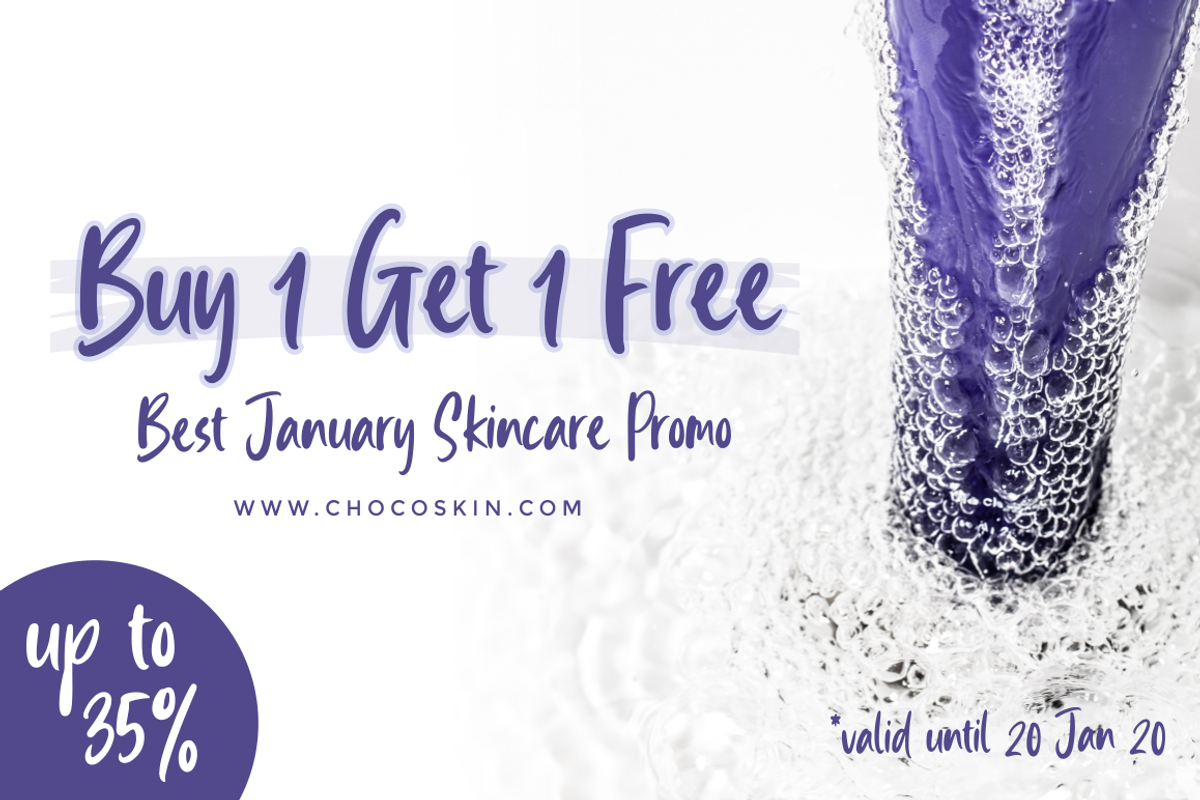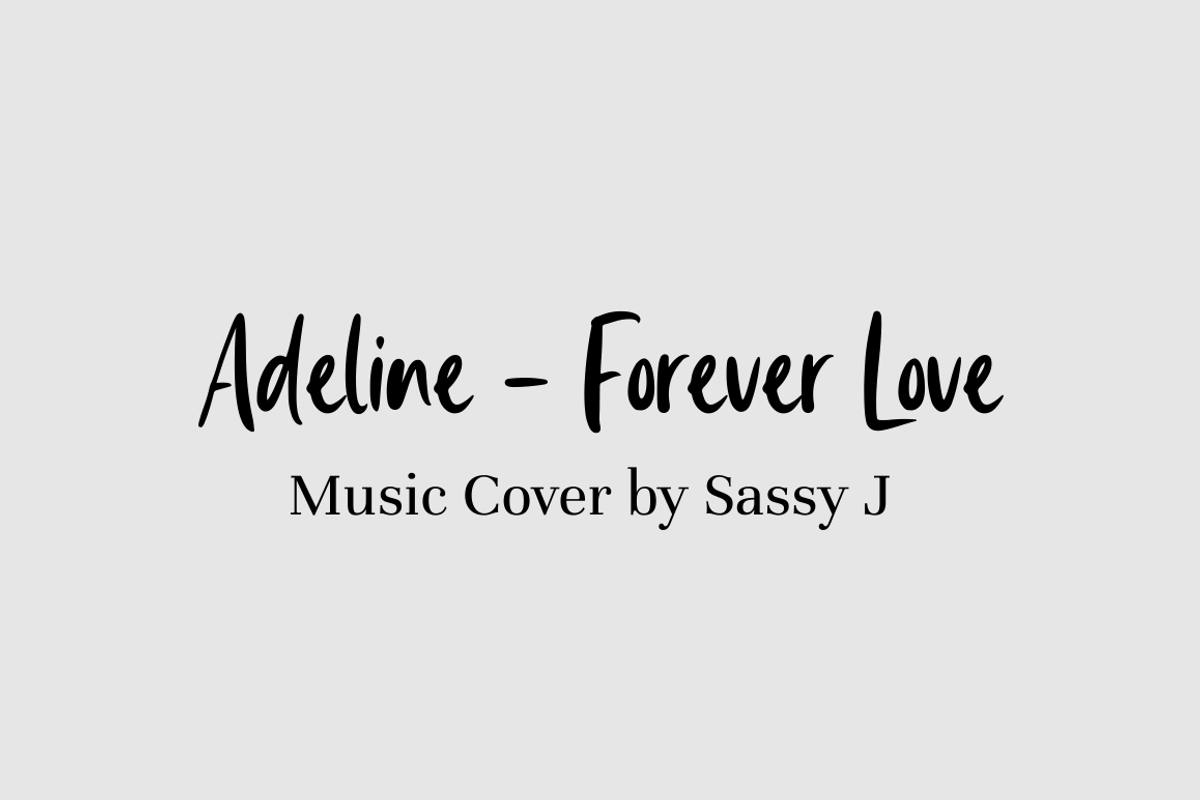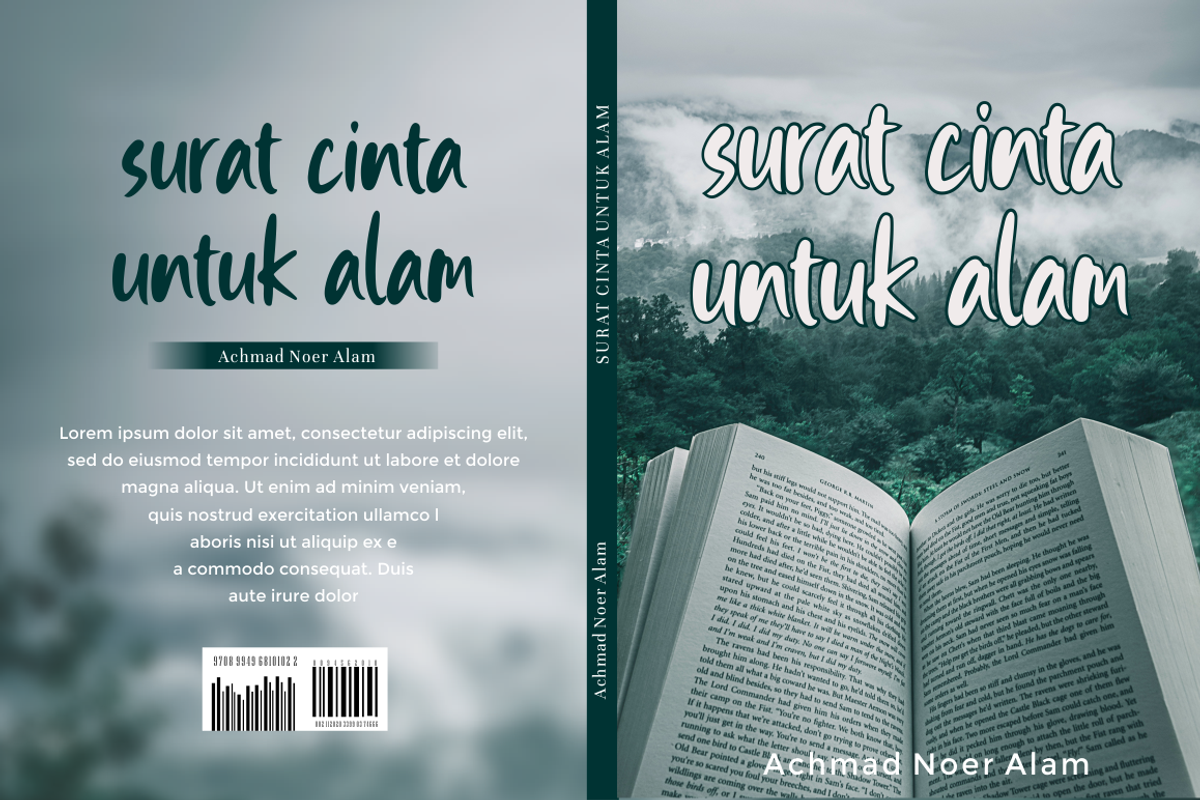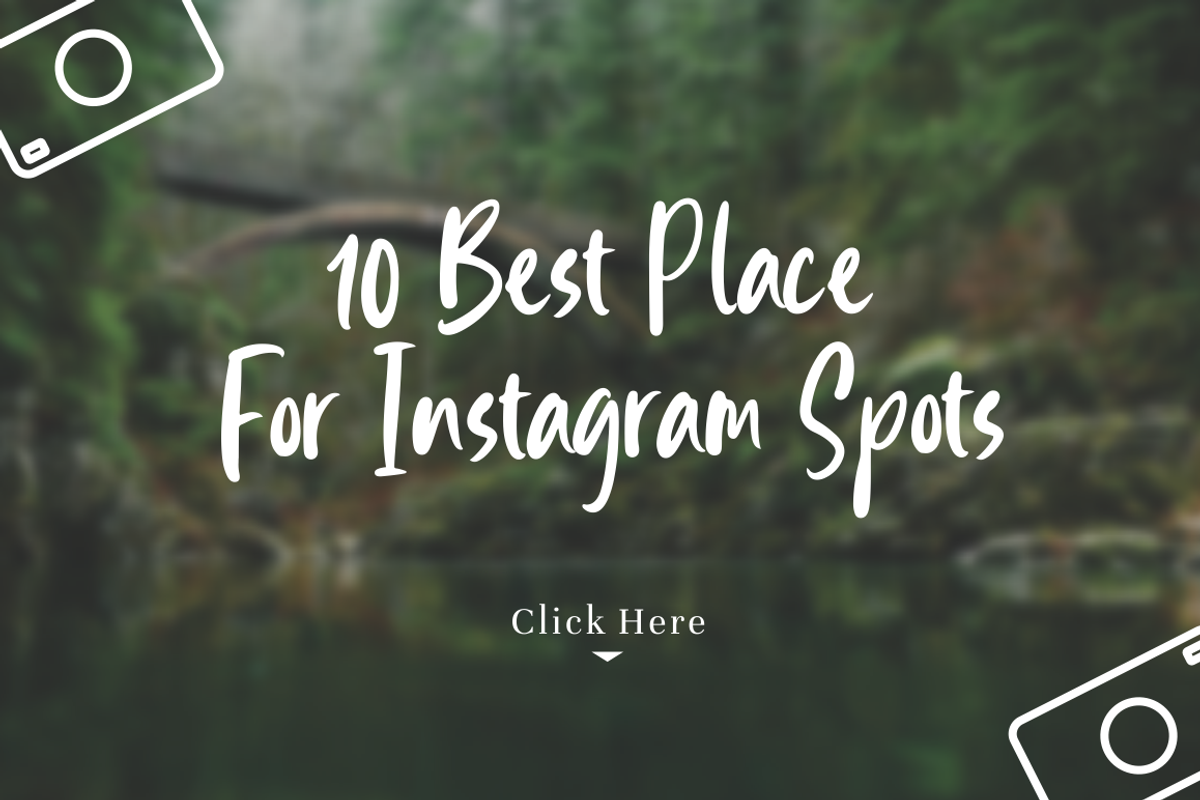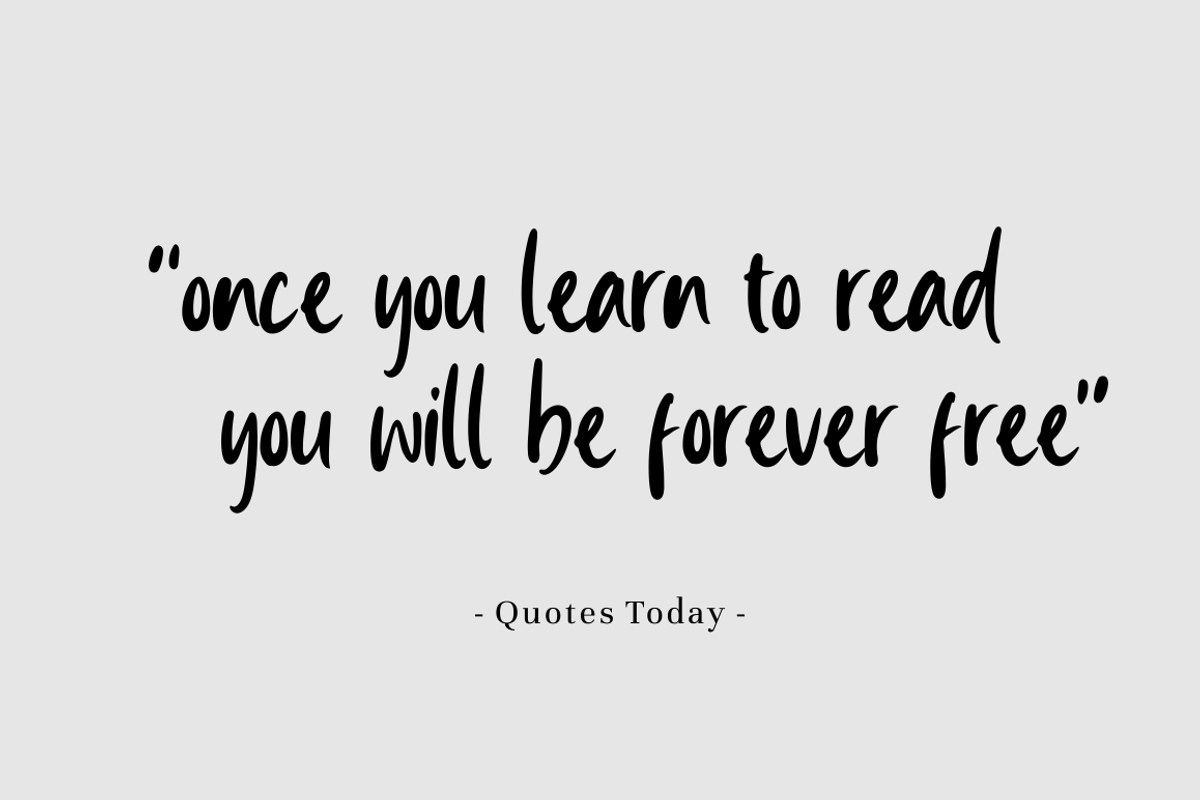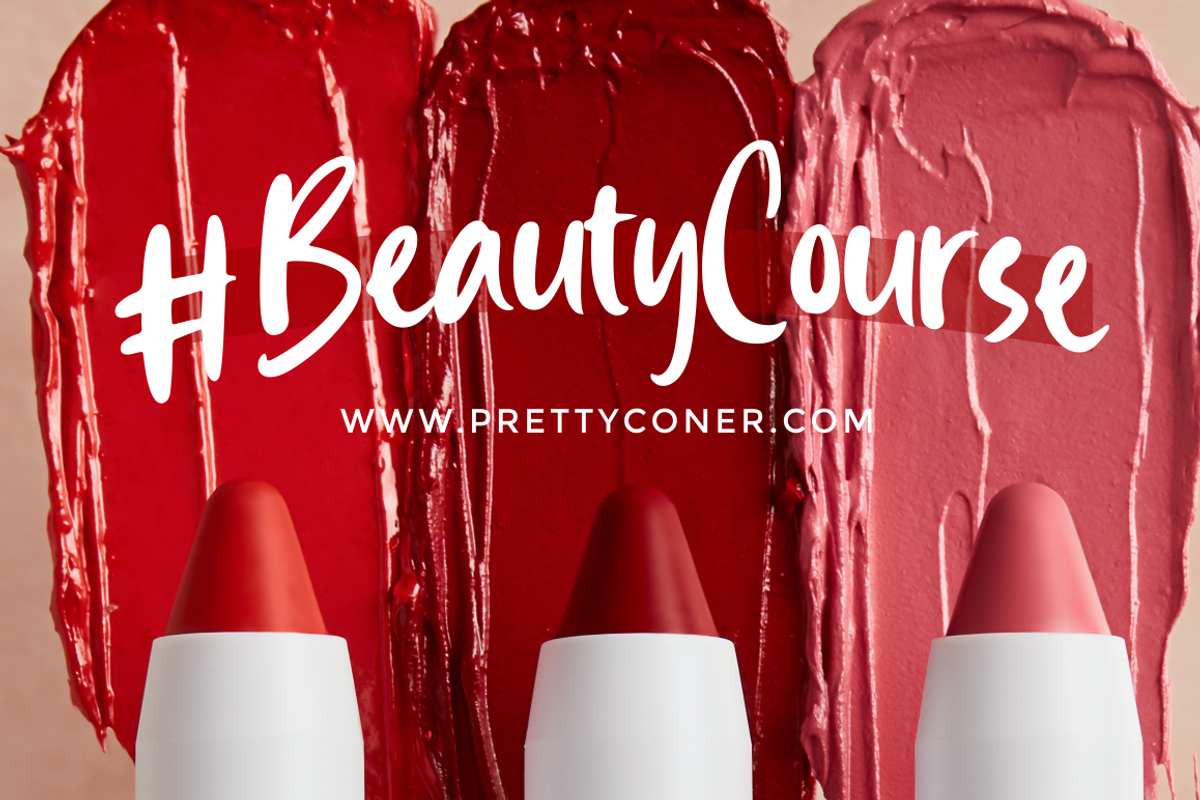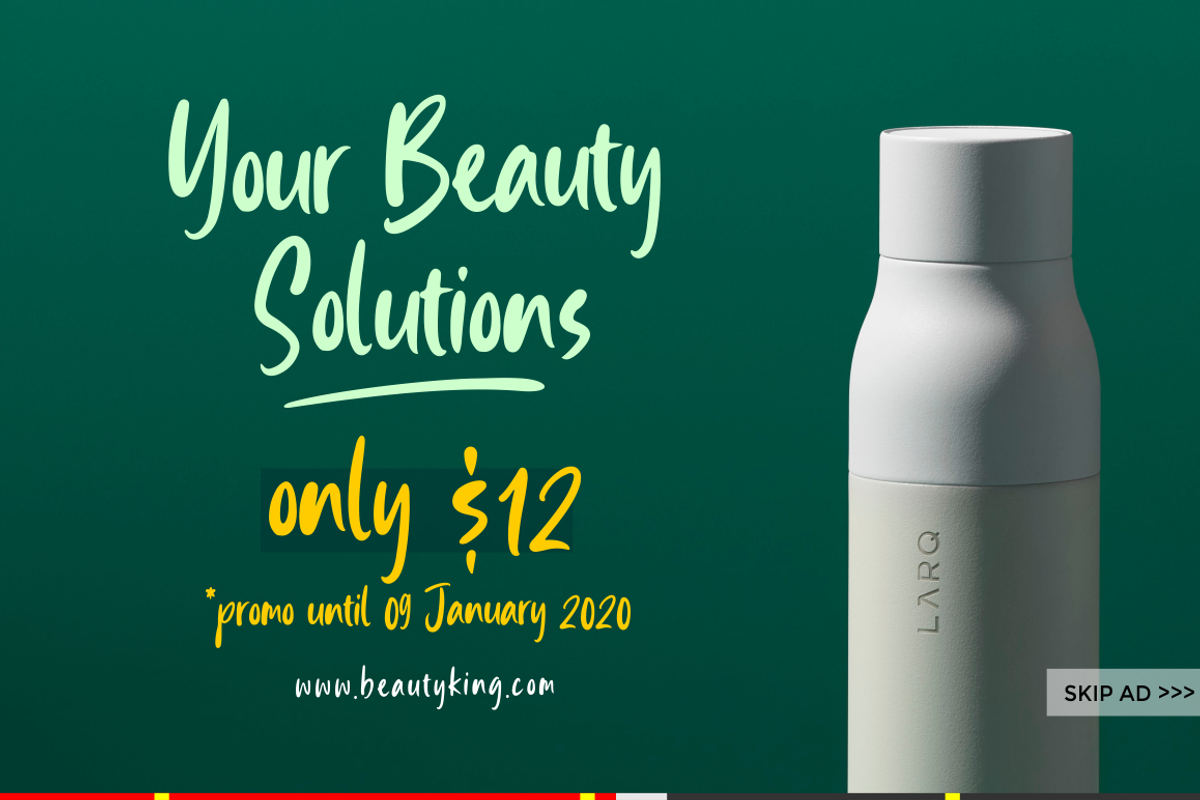
East Watch - Handwritten Font
East Watch is a natural handwritten font, this font Is perfect for logo, social media posts, advertisements, product packaging, product designs, label, photography, watermark, special events or anything.
- East Watch comes with full set of uppercase and lowercase letters, multilingual symbols, numerals, punctuation.